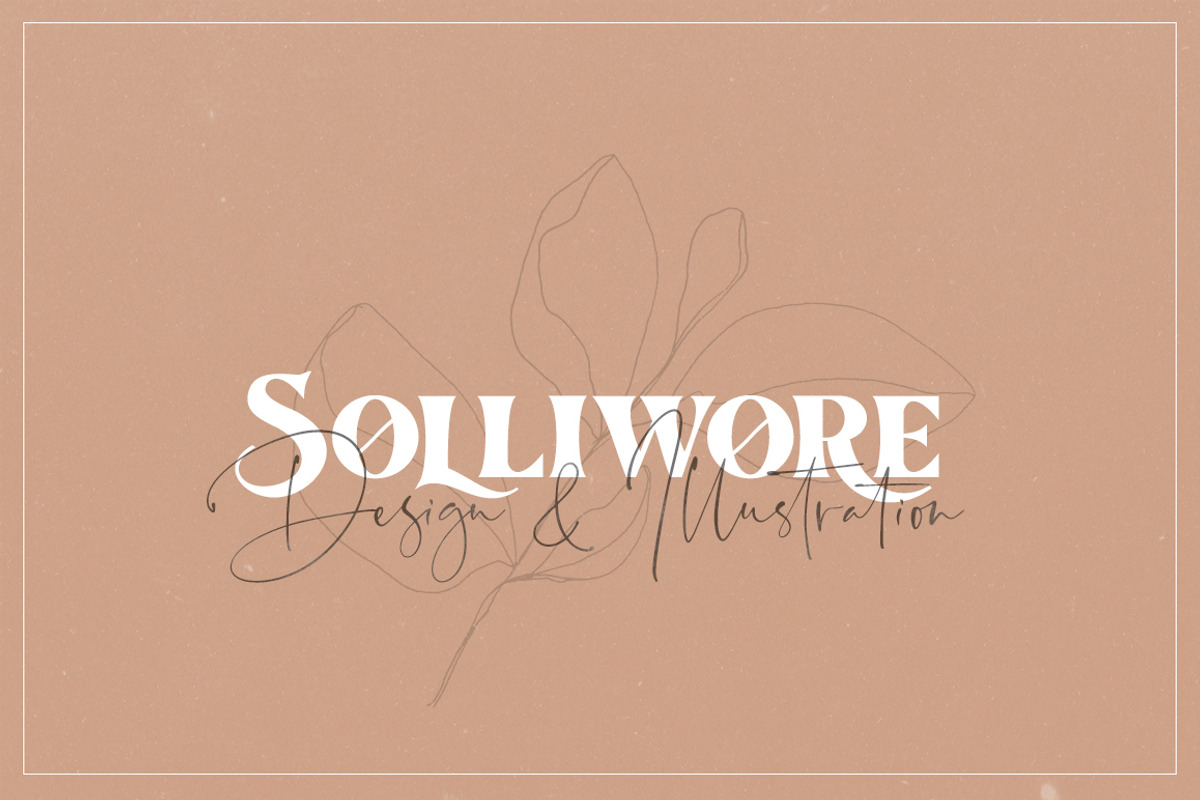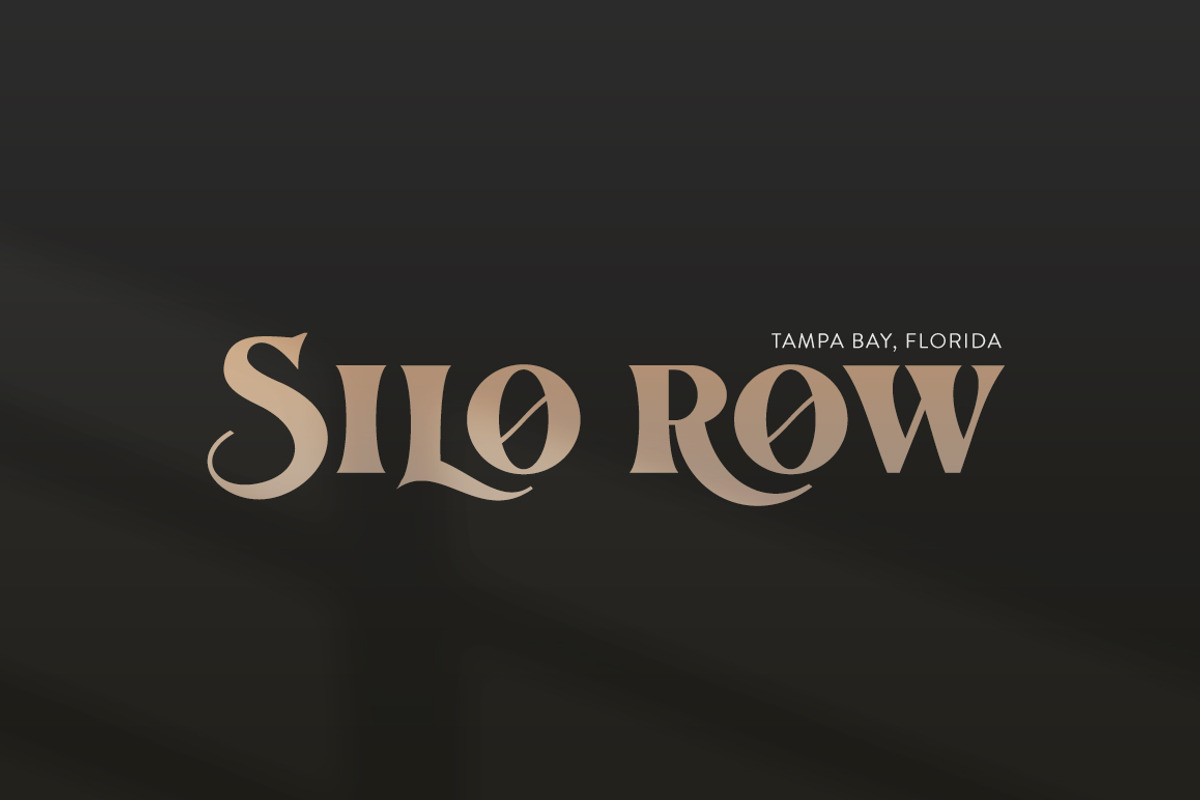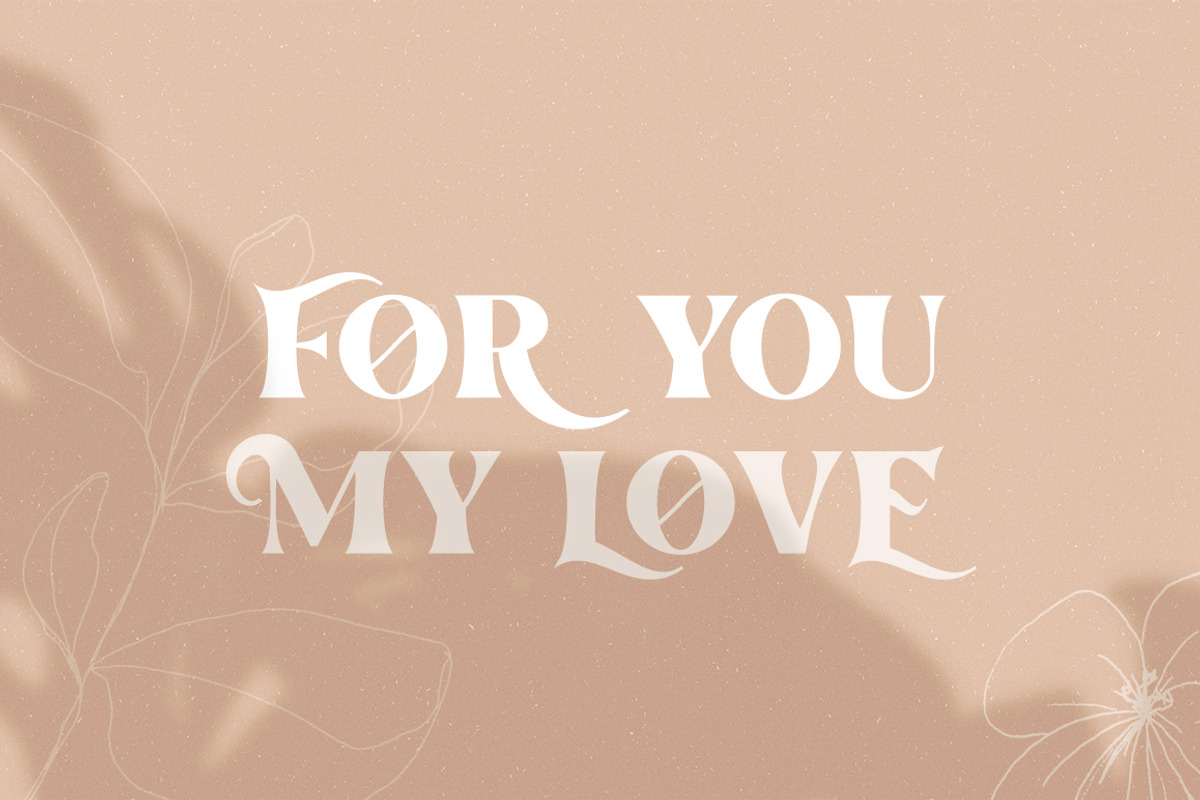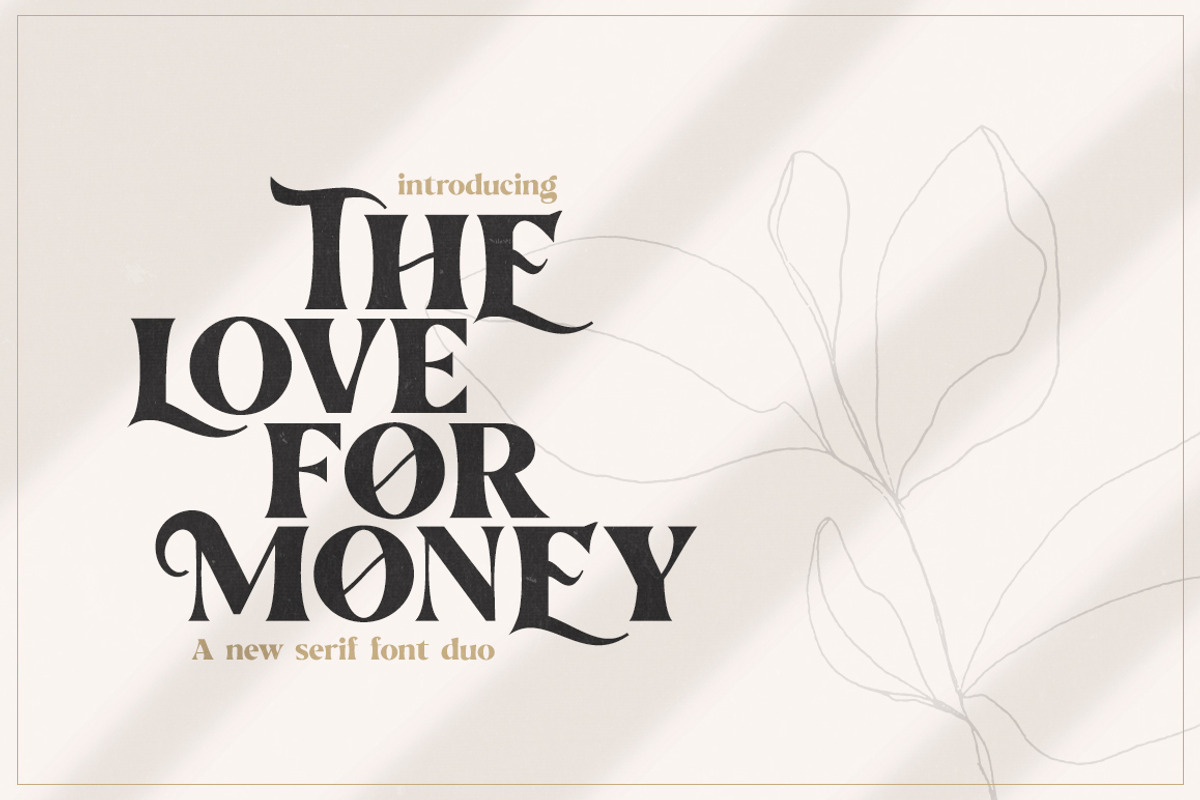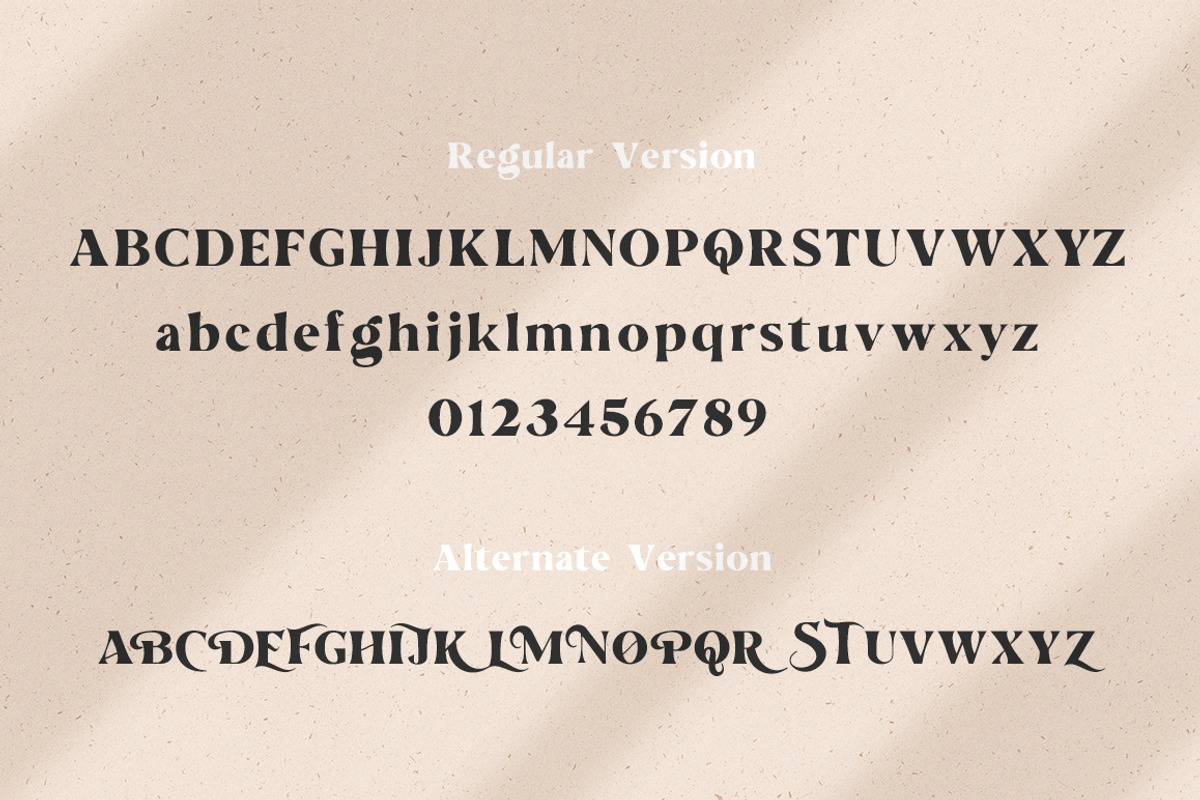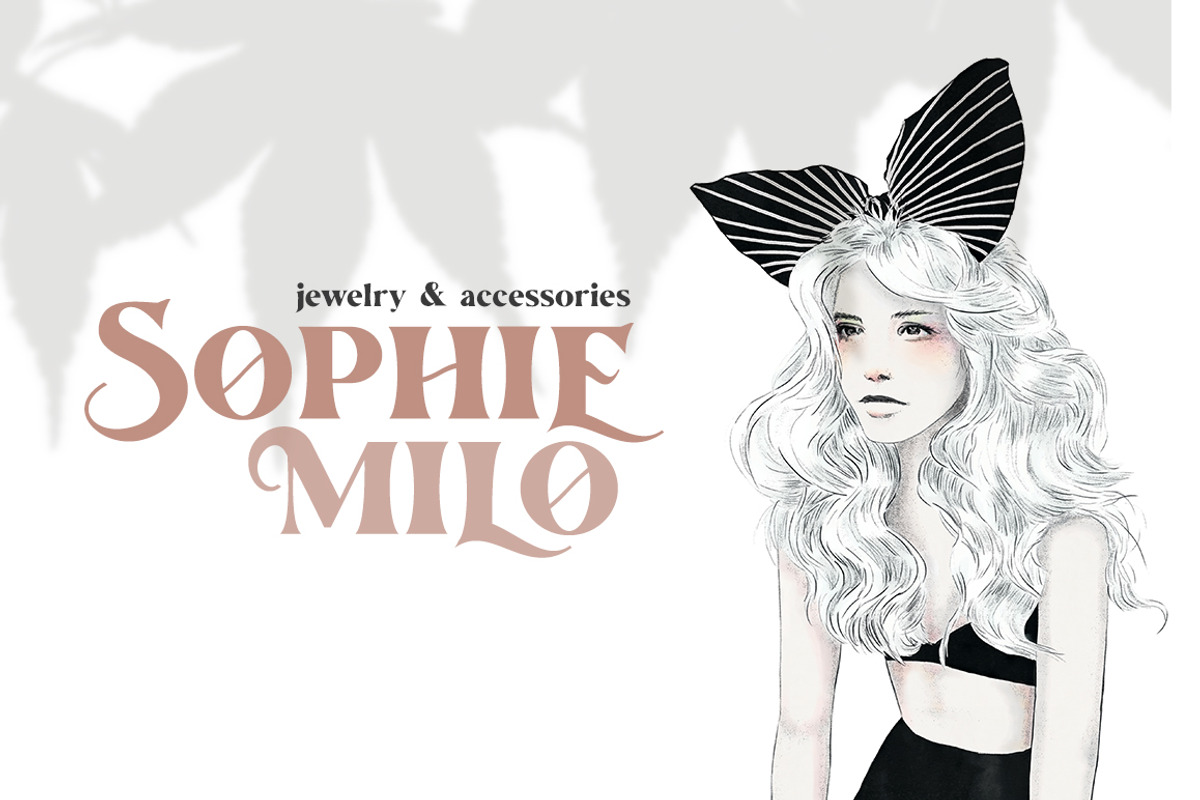
The Love For Money Font Duo
The love for money Font Duo is a stunning new, modern font from Salt & Pepper designs. A fabulous take on a classic serif style, we love every letter! This duo consists of the regular font plus an alternates version that includes some fun and fancy swashes, enjoy!